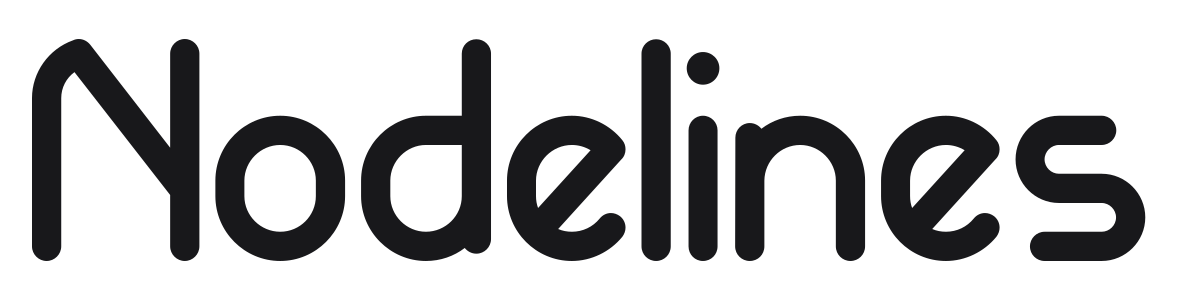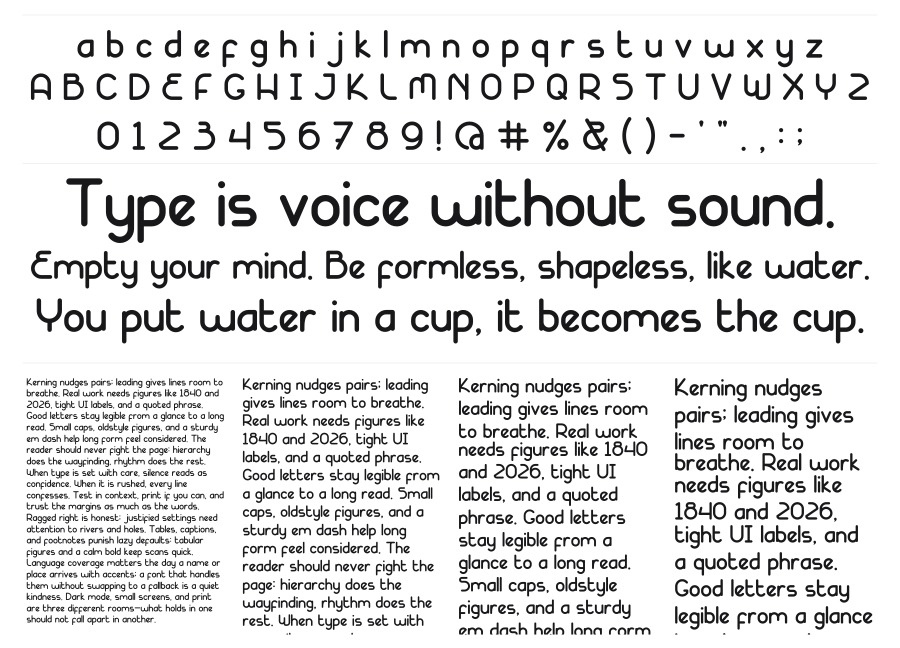
Nodelines
Nodelines is a bold rounded sans-serif with fully softened terminals and an even, monoweight stroke throughout. The wide, open construction and circular counters give it a warm, friendly presence that reads instantly at large sizes. It leans casual without feeling juvenile, sitting comfortably in branding, packaging, and app interfaces.